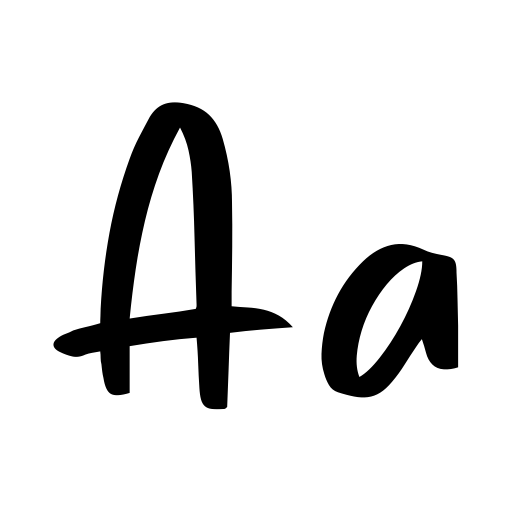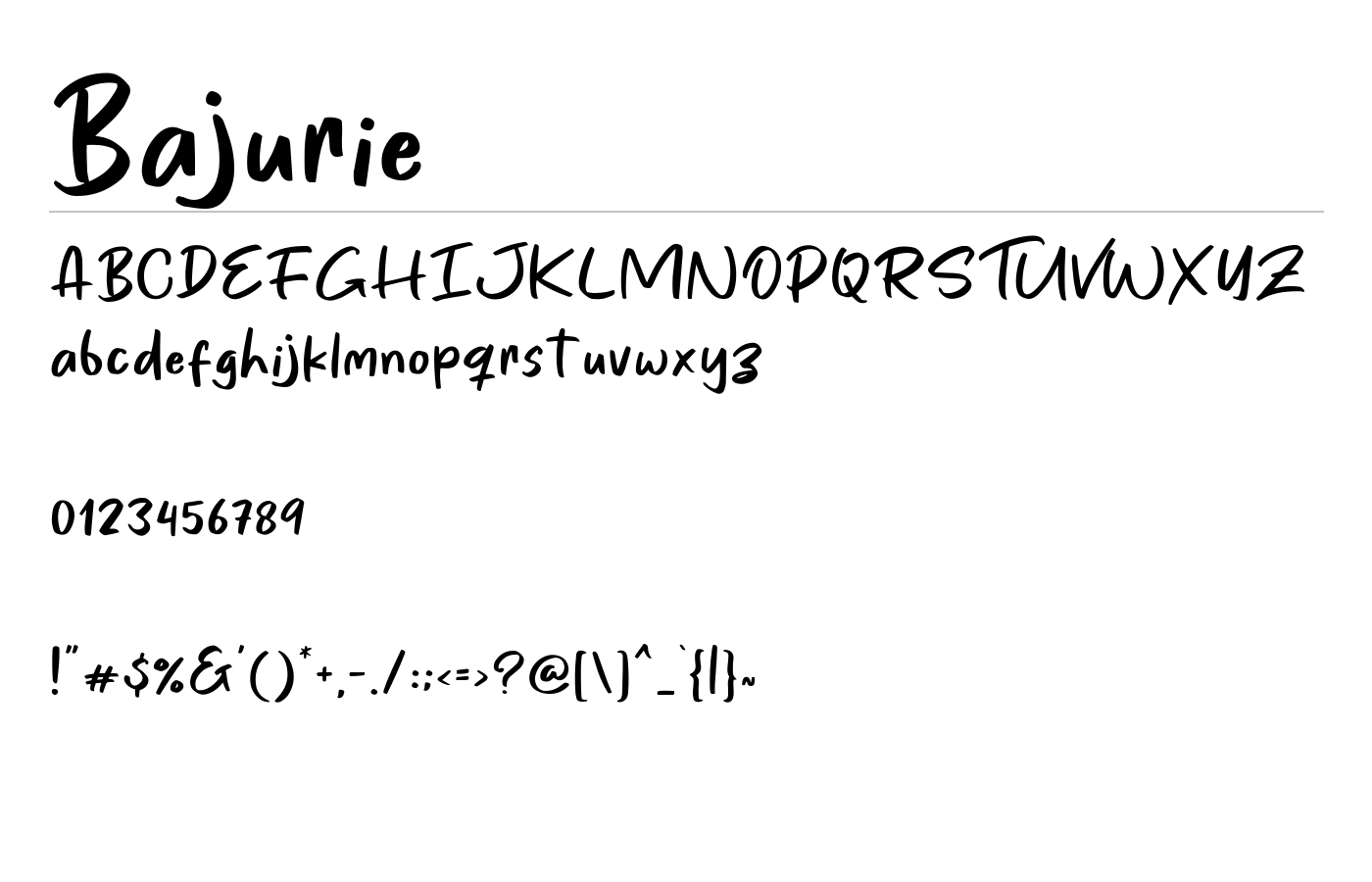
Bajurie is a lively handwritten script font that combines a casual, playful vibe with clear legibility. Its smooth, slightly irregular strokes and moderate weight give it a friendly, approachable feel, making it perfect for informal branding, creative projects, and personal communications. This font works especially well for headlines, invitations, and designs aiming to convey warmth and personality.
Bajurie Font
About Bajurie Font
| Font family | Bajurie Font |